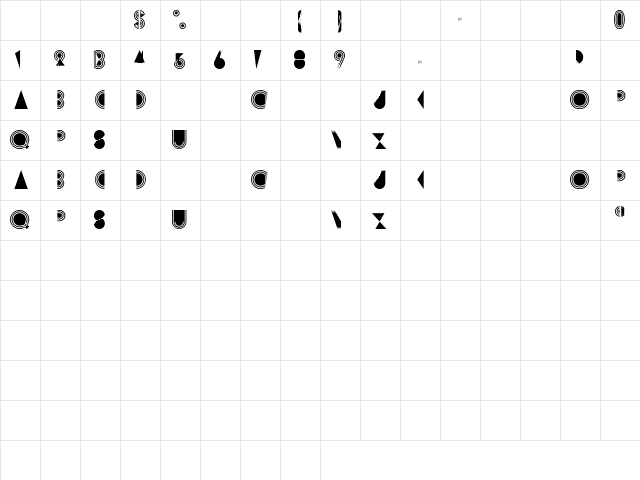
Prisma Regular Free Font
Prisma Regular
Prisma Family
Design Context for Prisma
Prisma is a composed and adaptable typeface that performs quietly and consistently across a wide range of design contexts.